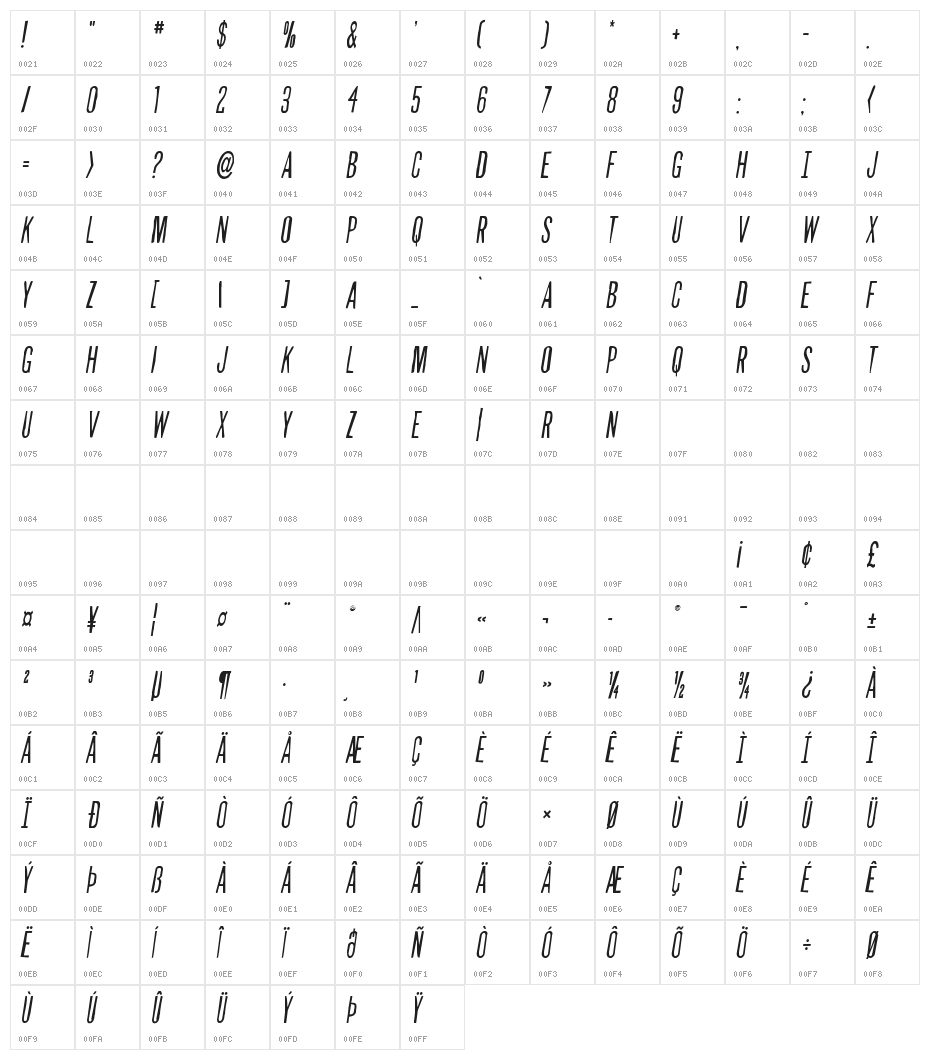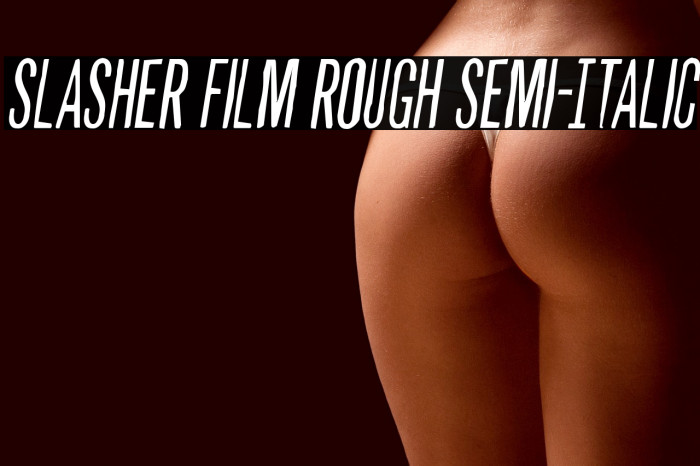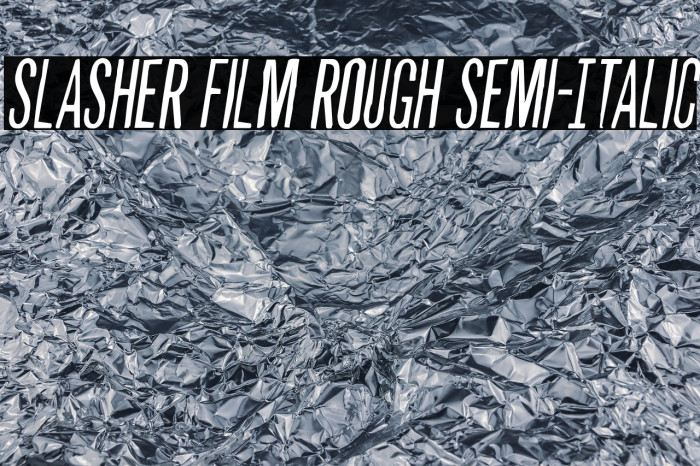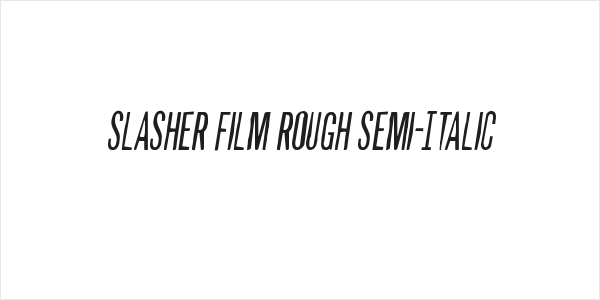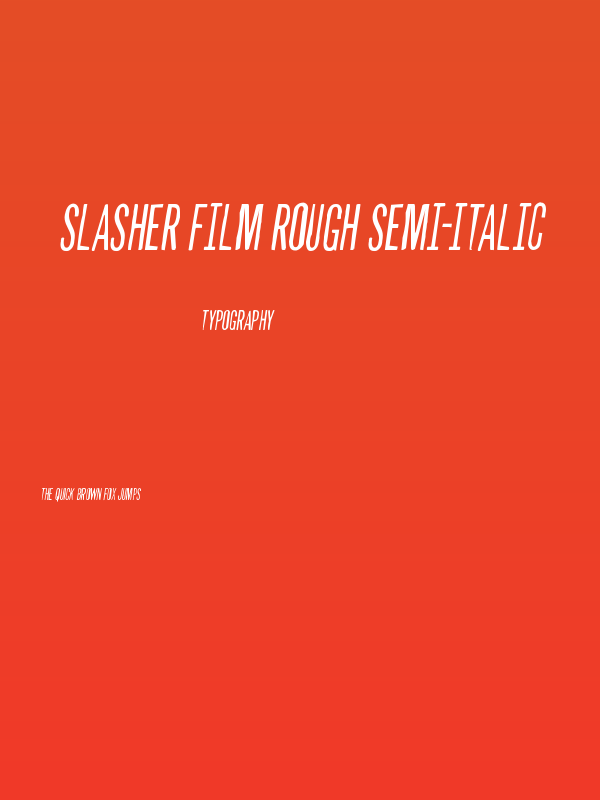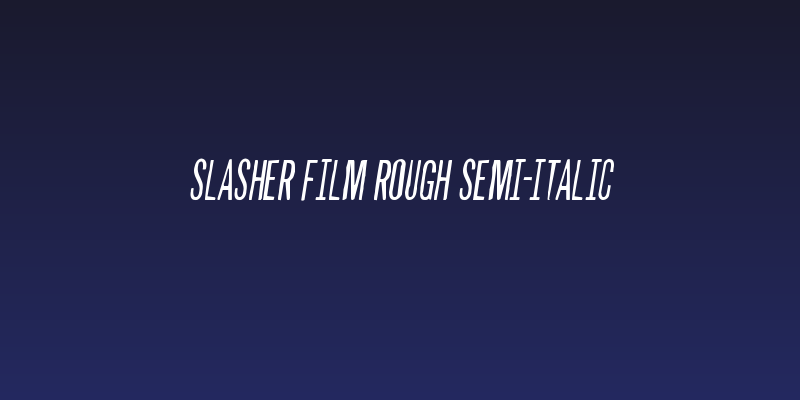
Slasher Film Rough Semi-Italic Font
Slasher Film Rough Semi-Italic Description
This font features a bold, dynamic style with a rough, semi-italicized appearance. The characters are elongated and slightly slanted, giving a sense of movement and urgency. The strokes are uneven, adding a textured, hand-drawn feel that enhances its edgy and dramatic look. The uppercase and lowercase letters maintain a consistent style, while the numerals and special characters complement the overall design. This font is ideal for creating a striking visual impact, suitable for projects that require a bold statement.
| Overall Style | Modern, Edgy |
| Use Case | Headlines, Posters, Branding |
| Proposed Projects | Ideal for horror movie posters, edgy branding, album covers, and graphic novels. |